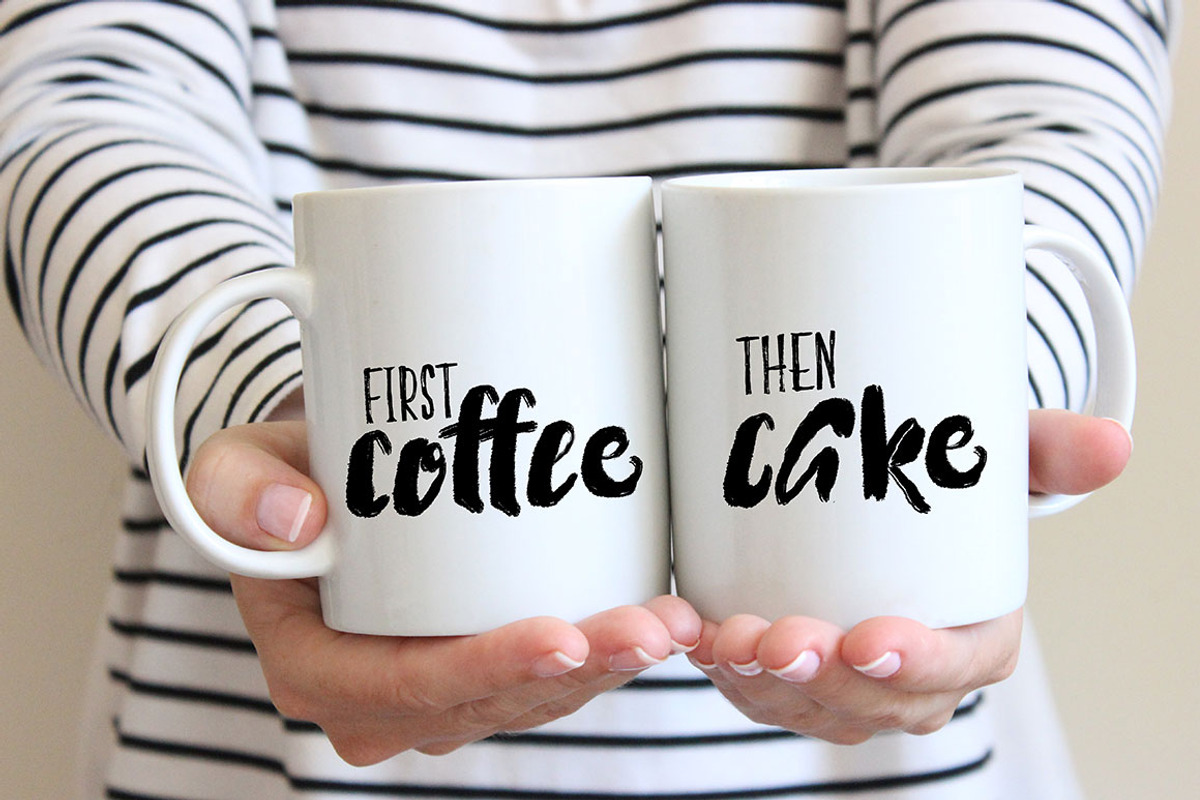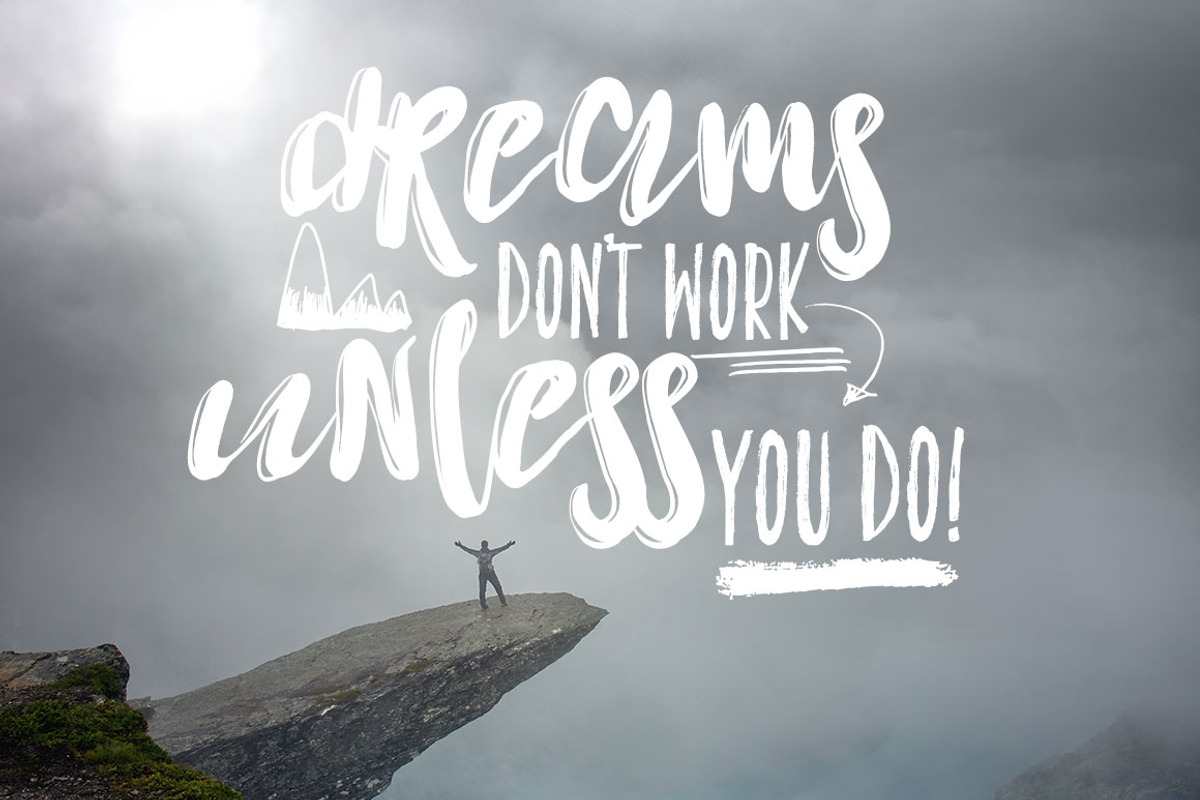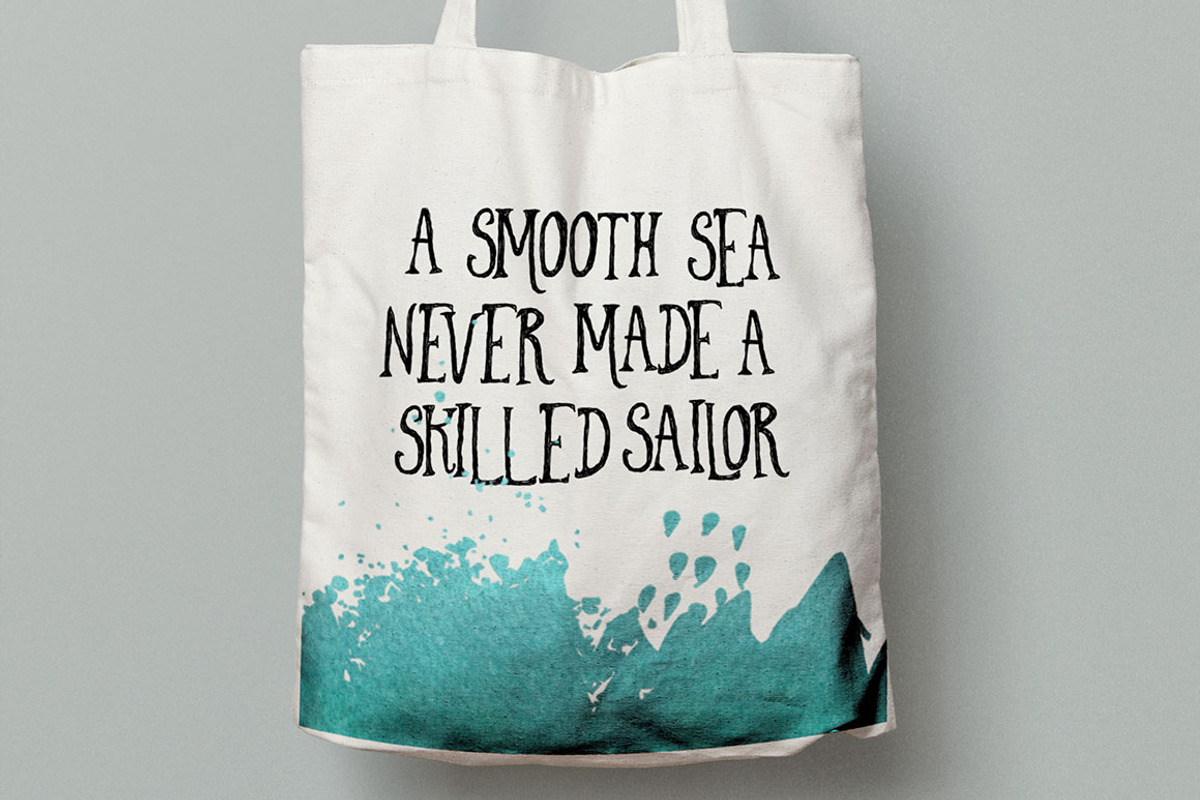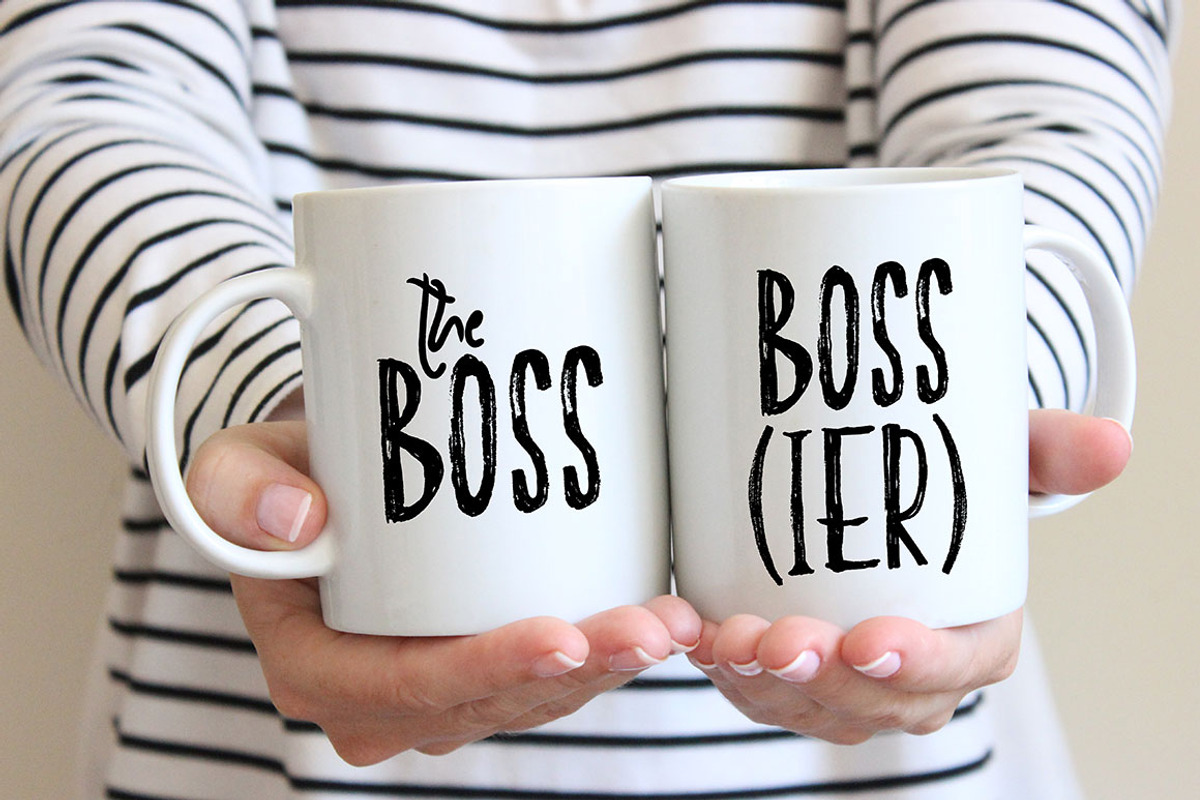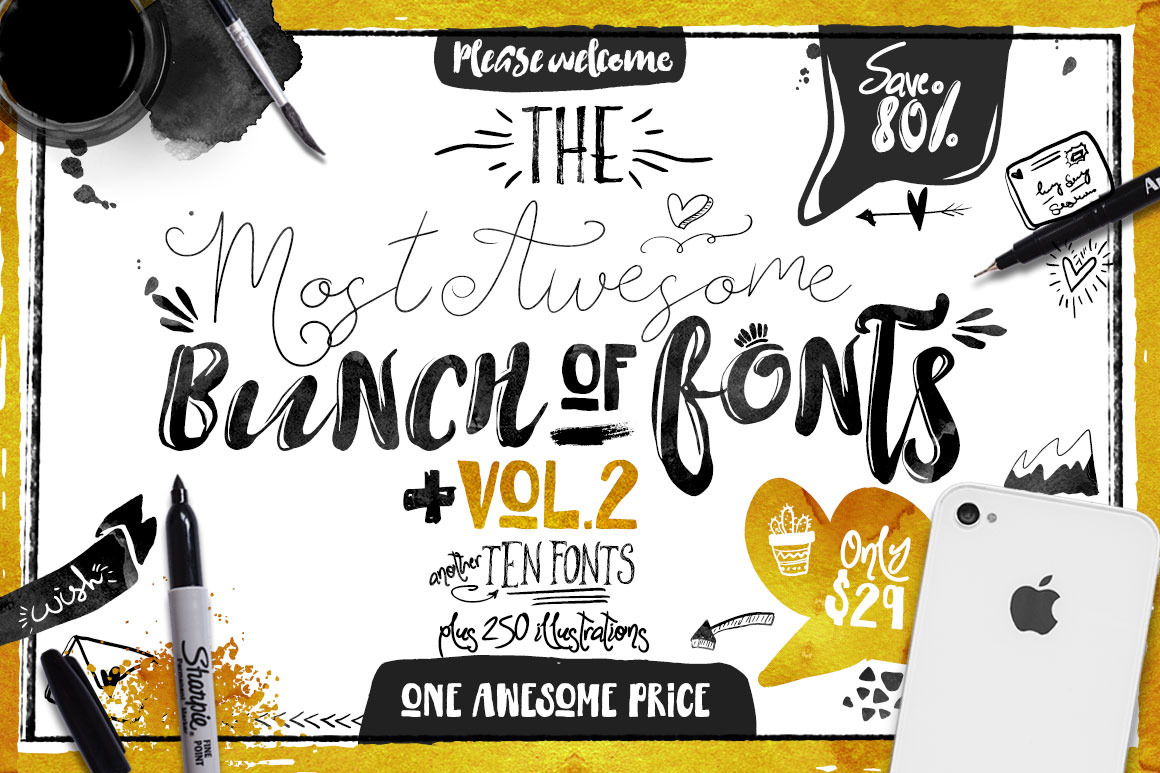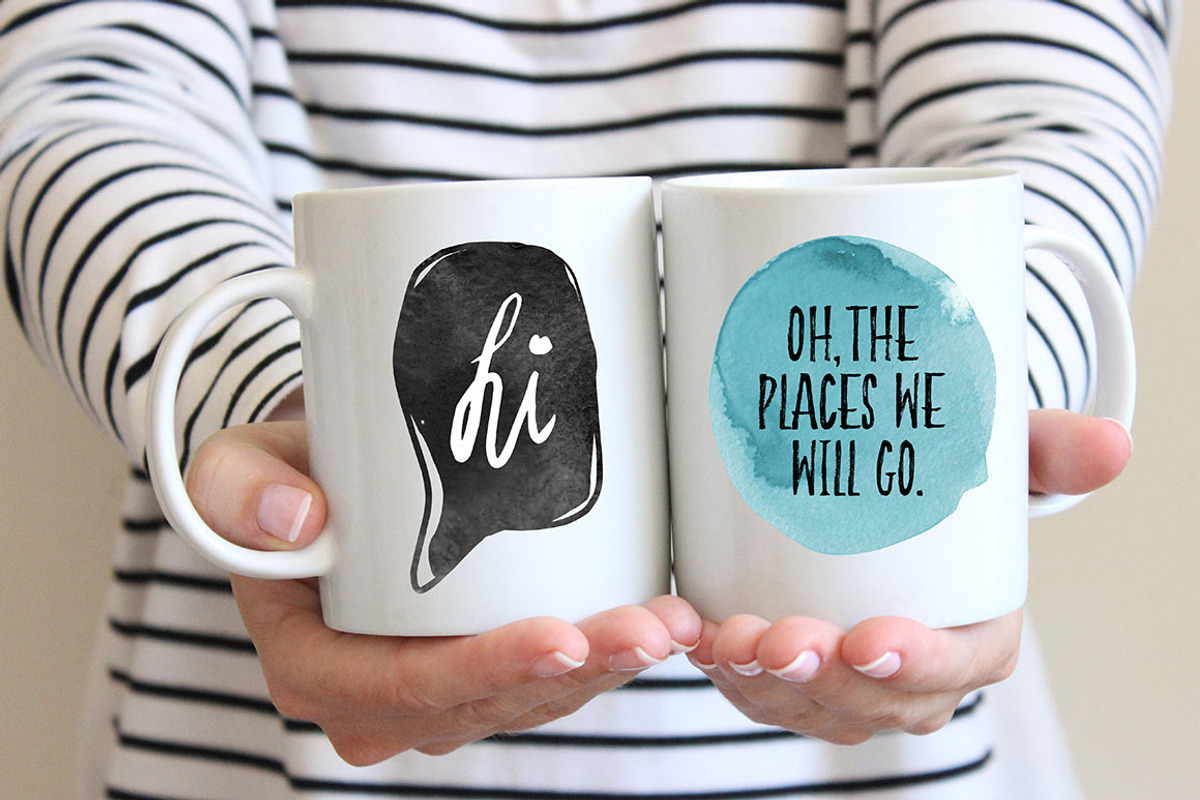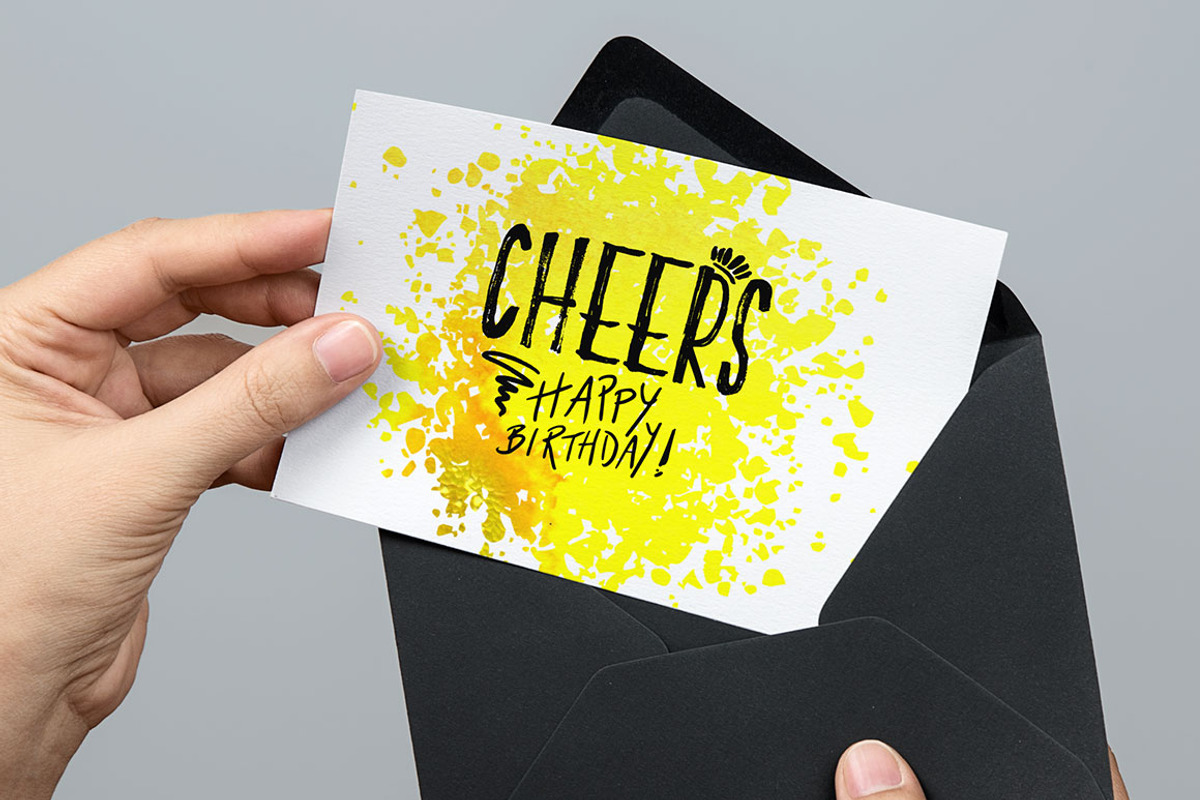
Big Bunch of Fonts Vol 2
This is the SECOND Volume of the most AWESOME Bunch of Fonts ever! - All Brand New - This new set will all work perfectly with Volume One!
All these fonts work together perfectly to create that hand drawn typography that is so on-trend.
PLUS This pack has an awesome 250 hand drawn illustrations as well!! - And each illustration is included as a font as well as a PNG!
The ten fonts are;
- Yellow Taxi
- Strike One
- Lovers Avenue
- Berry Shortcake
- Glenthompson
- Zombie Zone
- Sing Aloud
- Shopwreck
- Flattering
- Faithful and True
PLUS:
- Speechless Heart - an illustrations font
- Over the Border - an illustrations font
- And I Quote - an illustrations font
- Dashing Florals - an illustrations font
- Arrows and Swirls - an illustrations font